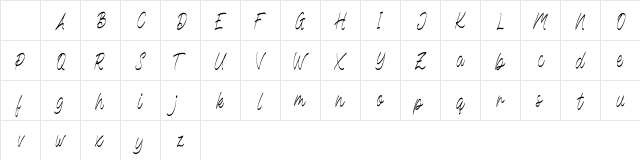
Complete Welldone FREE Regular glyph index. Displaying only characters natively supported by Welldone FREE Regular font.
Welldone FREE is a composed and adaptable typeface that performs quietly and consistently across a wide range of design contexts.